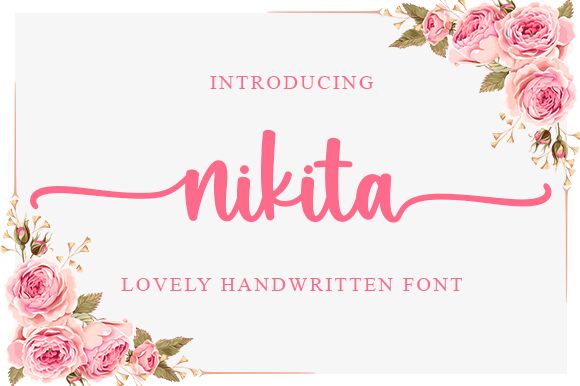
Nikita
Nikita is a charming semi-condensed font designed by Graphix Line Studio. With its lovely handwritten style, this font is perfect for adding a personal touch to your projects, whether it's invitations, greeting cards, or social media posts. The semi-bold typeface makes it easy to read while still being playful and whimsical. Use Nikita for wedding invites or baby announcements to create an intimate and heartfelt tone. This font can also add a cozy feel to blog headers, recipe cards, or DIY tutorials. Let Nikita bring warmth and personality to your next project!